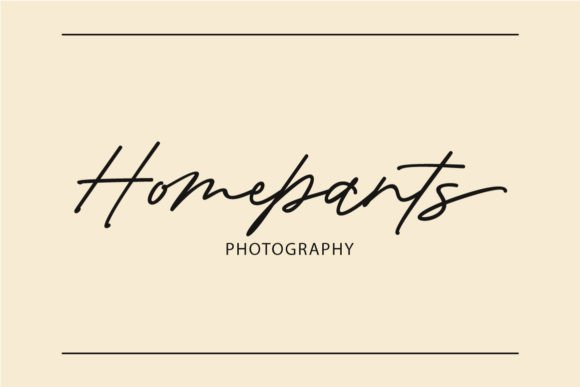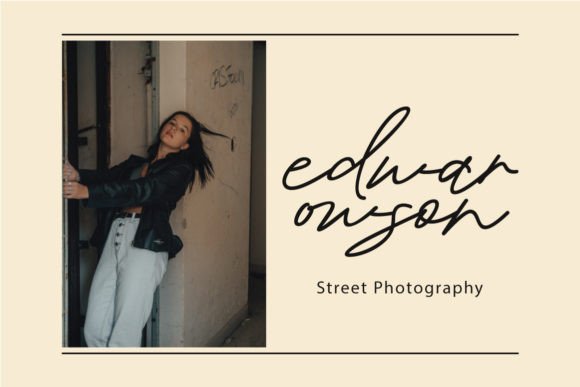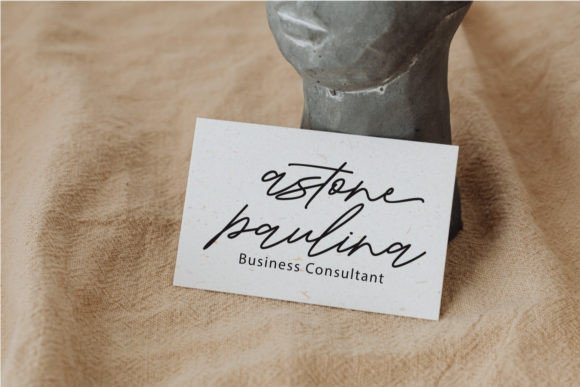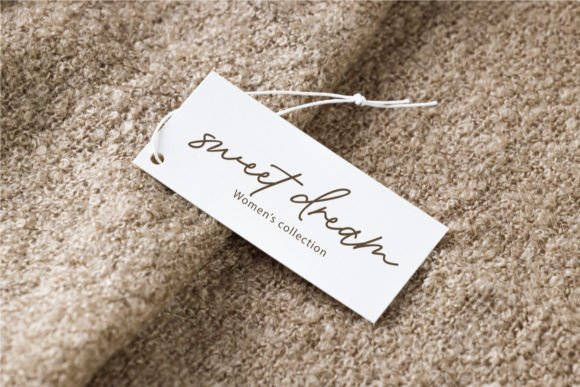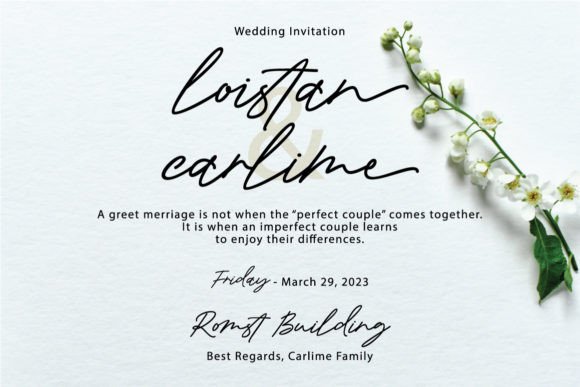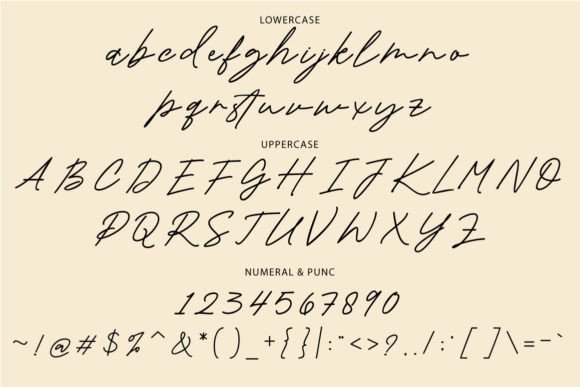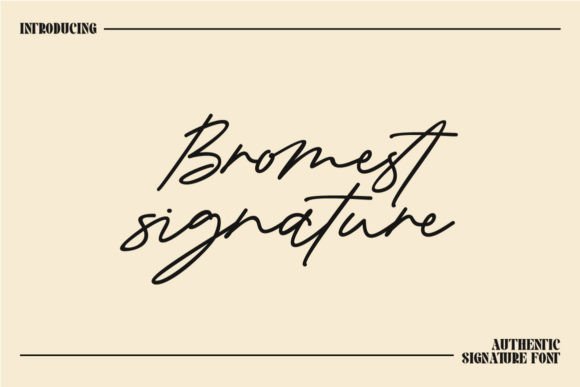
The Quest for the Perfect Signature Font: Discovering Bromest Signature
Ah, the elusive perfect font. You know, that one font that makes your design project go from meh to mesmerizing. I’ve been there, done that, and got the t-shirt (which, by the way, was probably designed with a font that wasn’t quite perfect). I recall working on a project for a client who wanted a signature font that exuded elegance and sophistication. After hours of scouring font libraries and testing out various options, I stumbled upon Bromest Signature. And just like that, my font woes disappeared. ✨
An Honest Review of Bromest Signature
• ✨ Contemporary and Fresh: Bromest Signature has a modern feel that’s hard to find in handwritten fonts. It’s perfect for designers looking for something new and exciting.
• ✅ PUA Encoded: This font is PUA encoded, which means you can access all the glyphs and swashes with ease! No more tedious font editing required.
• 💫 Thin-Lettered and Elegant: The font’s thin letters give it a delicate, sophisticated look that’s perfect for signature designs, logos, and more.
While Bromest Signature is an amazing font, there are a few things to keep in mind: ⚠️
• 🤔 Limited Use in Small Sizes: As with many thin-lettered fonts, Bromest Signature may not be the best choice for small font sizes (e.g., body text). It’s best used for headlines, titles, or signature designs.
• ⚠️ Some Swashes May Not Work Well in All Contexts: While the font’s swashes are beautiful, they may not work well in all design contexts. Experiment with different combinations to find what works best for your project.
The Story Behind Bromest Signature
Bromest Signature was designed with the intention of creating a font that’s both modern and elegant. The designer aimed to craft a font that’s perfect for signature designs, logos, and more. With its thin letters and beautiful swashes, Bromest Signature is sure to become a favorite among designers. 💫
A: PUA (Private Use Area) encoding allows font designers to include additional glyphs and swashes that can be accessed easily. In the case of Bromest Signature, PUA encoding makes it easy to access the font’s beautiful swashes and glyphs.
Q: Is Bromest Signature suitable for body text?
A: While Bromest Signature is a beautiful font, it’s not ideal for body text due to its thin letters. It’s best used for headlines, titles, or signature designs.